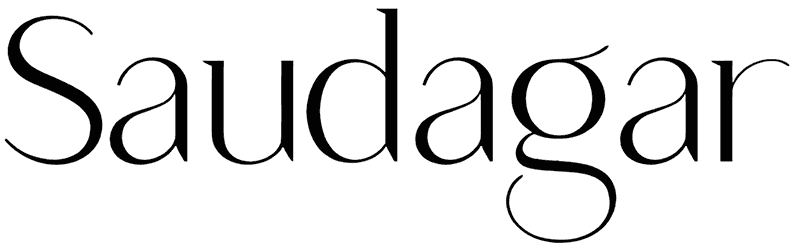
Saudagar Font
Stylish and delicate, this is a proper description for Saudagar as an elegant font. As an all-purpose font, it would be a classy option to display innumerable designs such as branding, ads, flyers, and others. Saudagar h…
Stylish and delicate, this is a proper description for Saudagar as an elegant font. As an all-purpose font, it would be a classy option to display innumerable designs such as branding, ads, flyers, and others. Saudagar has a face that never gets old and can show your design with authenticity and full confidence.